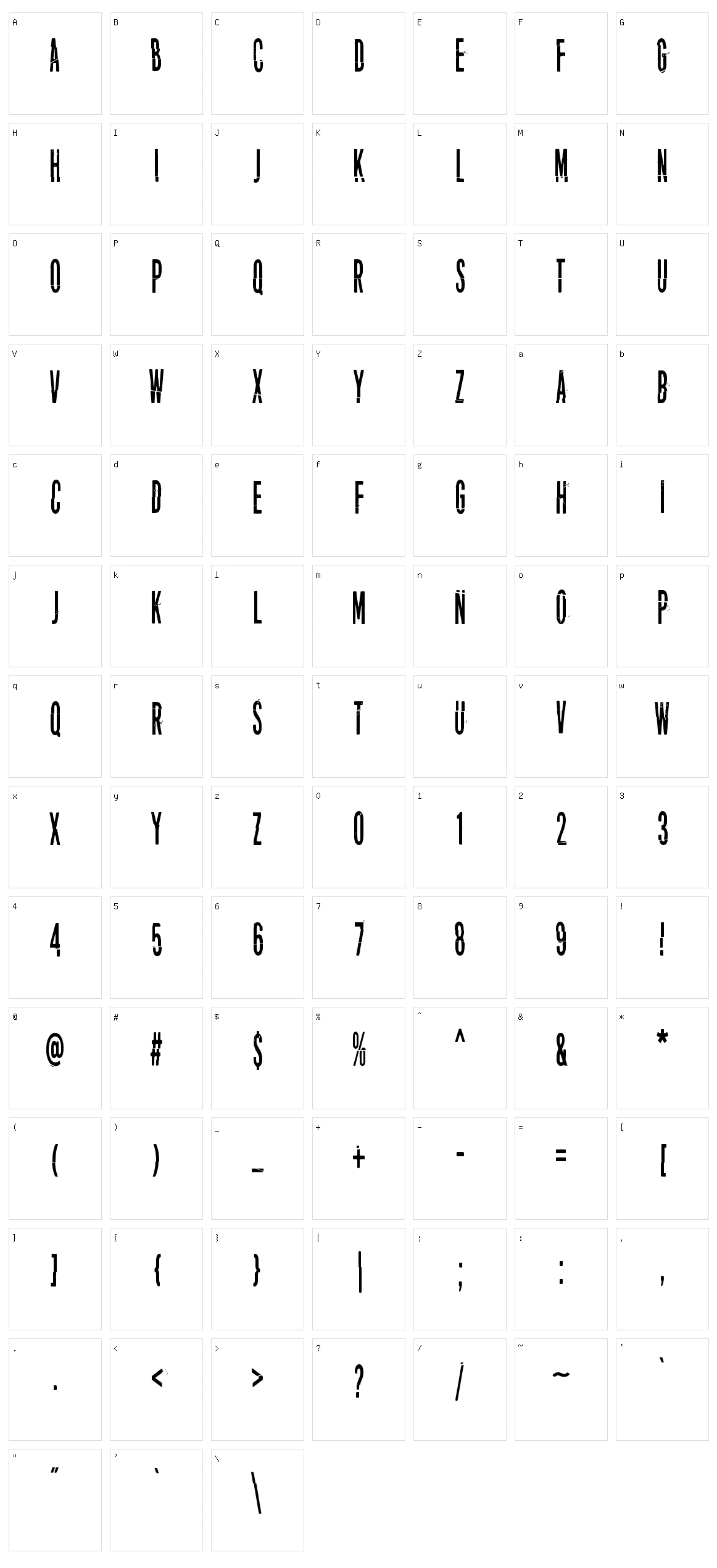
The free font Puolelta toiselle is carefully designed by junkohanhero, showcasing a thoughtful balance of creativity and usability and falls under the Eroded font style. When you download the ZIP file, it contains only 622.99 KB of font files, making it lightweight and quick to download. Please review the license details below to understand permitted usage and distribution rights. If license information is not available, we recommend using this font for personal projects only or contacting the author directly for commercial usage permissions.